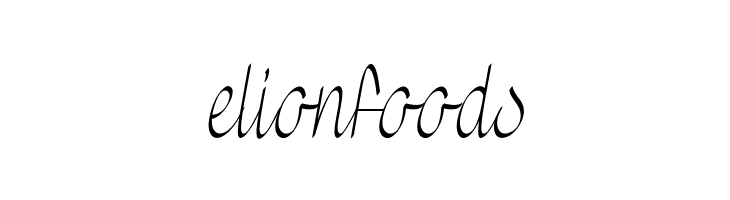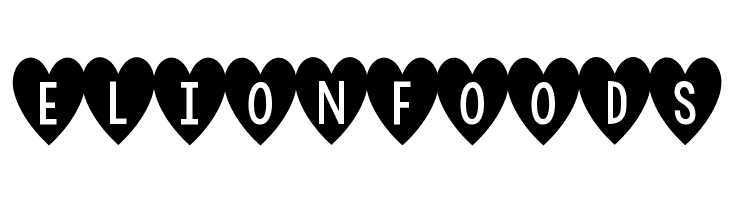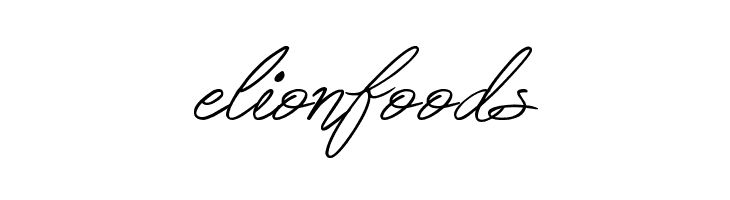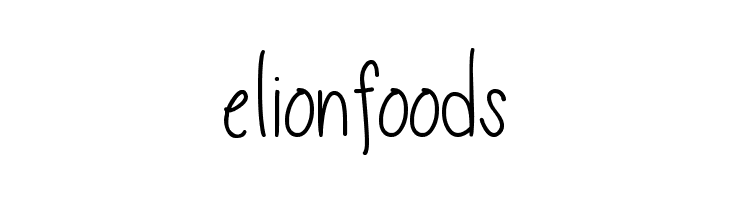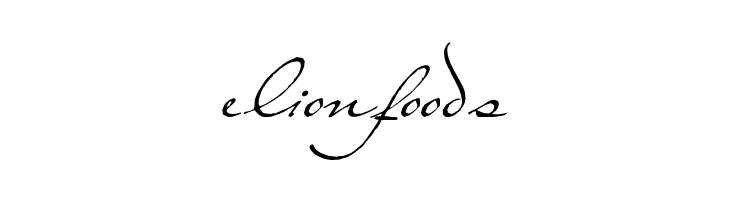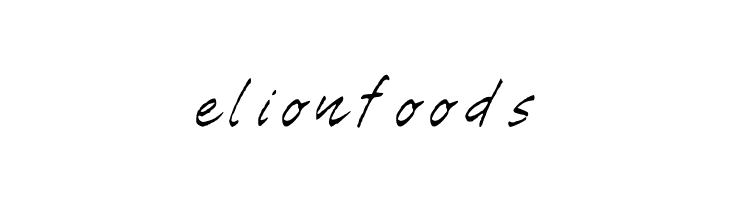
A playful, flowing cursive font with a nostalgic, handwritten style.
A decorative font with characters inside heart shapes, ideal for romantic themes.
A flowing, cursive script font with elegant, connected letters and dramatic flourishes.
A playful, handwritten font with tall, narrow letters and a casual style.
An elegant script font with flowing, cursive style and intricate details.
A graceful script font with elegant, flowing calligraphic style.